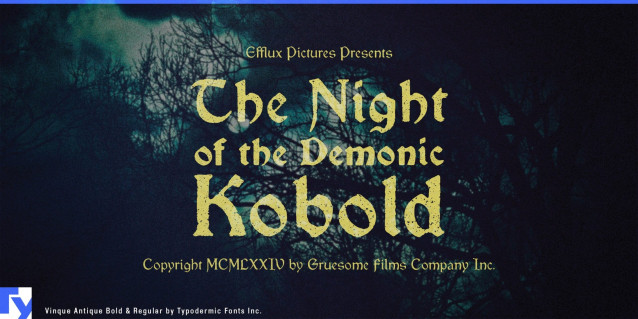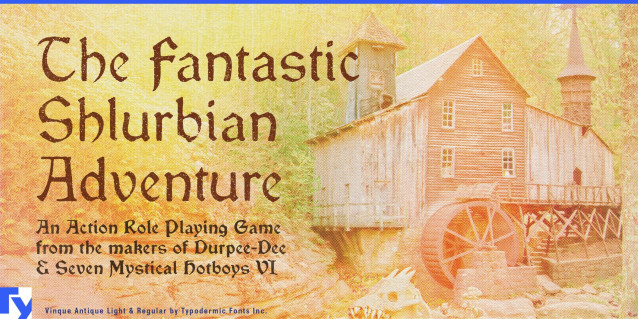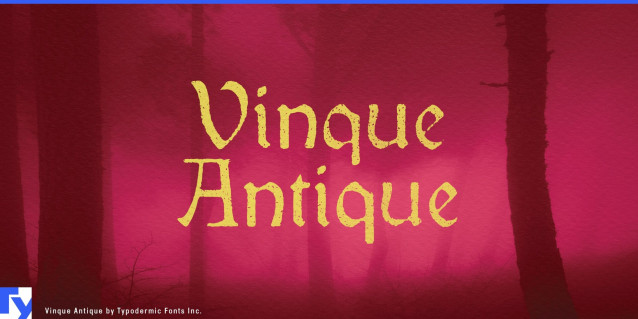
Vinque Antique Font
Vinque Antique Font is a weathered counterpart to its cleaner sibling, Vinque. Where Vinque evokes the formal rhythm of medieval lettering, Vinque Antique adds the patina of age—textures that suggest ink fading on vellum or letters chiseled into stone centuries ago. Each character carries one of three subtle variations, cycling automatically. The effect is organic and irregular, avoiding the sterile repetition of most distressed fonts.
Despite its antique surface, the core design remains crisp and legible. Vinque Antique retains the stately balance of its medieval-inspired structure but tempers it with a handmade, time-worn character. Three weights with italics provide range for both bold declarations and softer passages, while multilingual support extends from Latin to Cyrillic to Greek and Vietnamese.
Vinque Antique lends atmosphere wherever age and authenticity matter. It works in heritage product packaging such as wine, spirits, or specialty foods; in book covers, chapter headings, and pull quotes; in invitations, menus, and programs where formality meets warmth; in high-end retail signage and identity systems; and in posters for concerts, theater, and cultural events. Its texture gives contemporary design the aura of tradition—an impression that feels crafted rather than fabricated.
For projects that need the same historic backbone without the weathering, Vinque offers a clean companion. Together, the two families let designers move fluidly between polish and patina, timeless and timeworn.